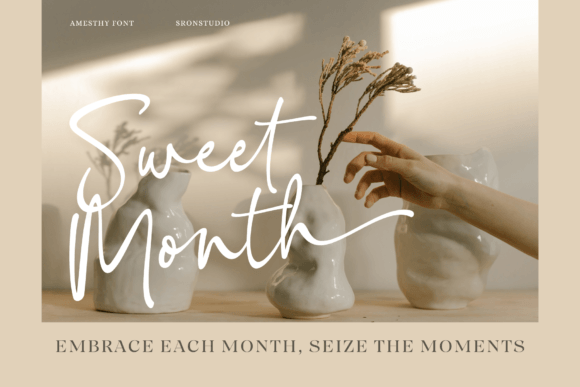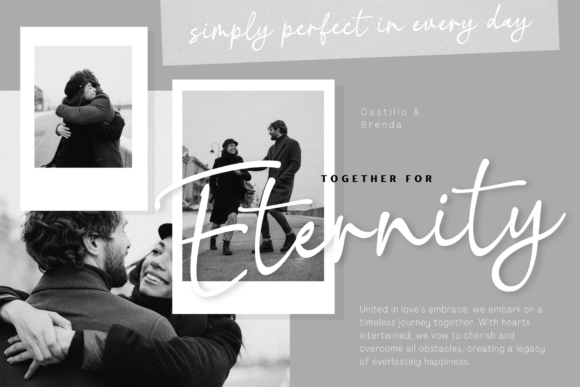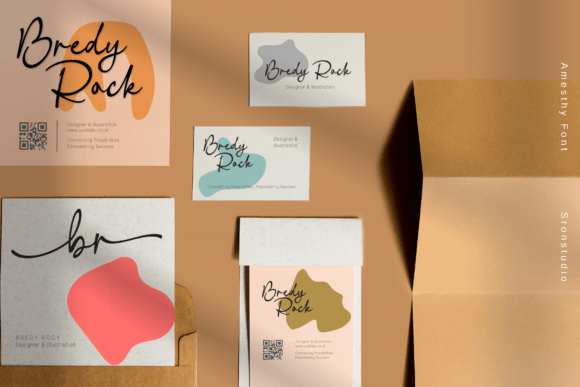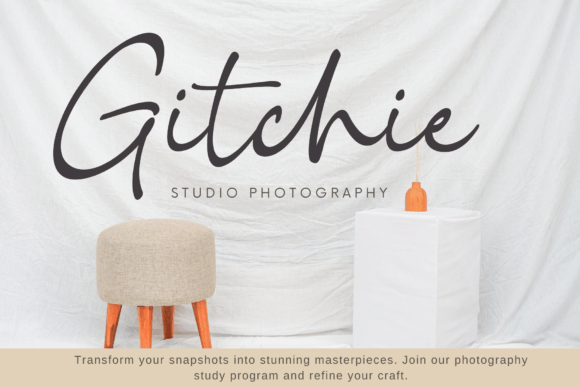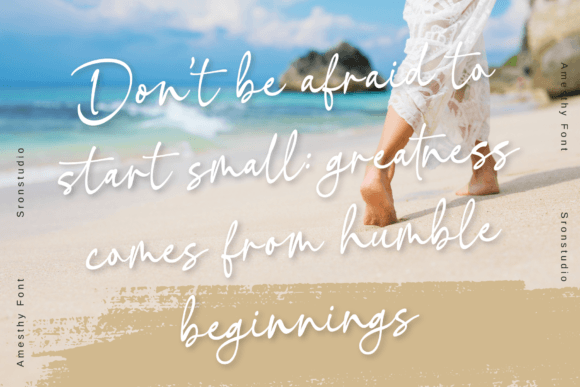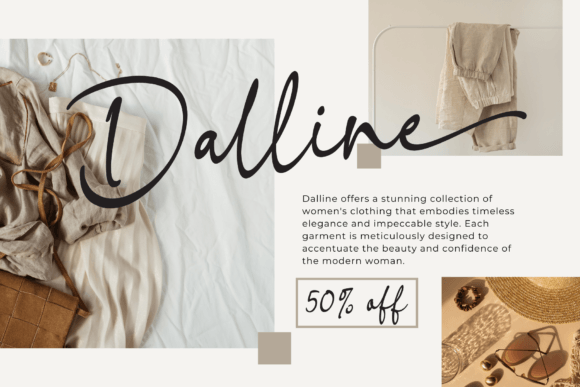
Introducing Amesthy Font: Elevate Your Designs with Elegance and Sophistication
In the world of design, fonts play a crucial role in conveying the tone and personality of a brand or project. For designers and crafters seeking to add a touch of luxury and refinement to their work, the Amesthy font is an exceptional choice. This sophisticated signature-style font is designed to bring elegance and a personal touch to various design applications, making it perfect for logos, invitations, personal branding, and more.
The Beauty of Amesthy Font
Amesthy font boasts flowing lines and stylish flourishes that exude refinement and luxury. Its unique, handwritten signature style gives any design a distinctive and high-end feel, setting it apart from more conventional fonts. Whether you’re working on a logo, an invitation, or a personal branding project, Amesthy adds a level of sophistication that is sure to leave a lasting impression.
Key Features of Amesthy Font
- Sophisticated Signature Style: Amesthy’s elegant and refined appearance makes it perfect for designs that require a touch of luxury.
- Flowing Lines and Flourishes: The font’s unique and stylish elements enhance its beauty and make each character stand out.
- Versatile Use: Ideal for a wide range of design projects including logos, invitations, personal branding, stationery, and more.
Why Choose Amesthy Font?
For designers and crafters, standing out in a crowded market is crucial. The Amesthy font offers a unique and stylish solution that can elevate your designs and make them more memorable. Here are a few reasons why Amesthy should be your go-to font for your next project:
- Elegance and Sophistication: Amesthy brings an unmatched level of elegance and sophistication to any design, making it perfect for high-end projects.
- Personal Touch: The handwritten signature style of Amesthy adds a personal touch to your designs, making them more relatable and engaging.
- Versatility: Amesthy’s versatility means it can be used across a variety of design projects, providing a consistent and professional look.
- Experiment with Glyphs and Ligatures: Take advantage of Amesthy’s PUA encoding to explore the various glyphs and ligatures available. This can add depth and uniqueness to your designs.
- Mix and Match: Don’t be afraid to experiment with different sizes, colors, and styles to create a look that is uniquely yours.
- Pair with Complementary Fonts: For a cohesive look, pair Amesthy with other fonts that complement its elegant and sophisticated style.
The Amesthy font is a powerful tool for designers and crafters looking to add a touch of elegance and sophistication to their work. With its flowing lines, stylish flourishes, and PUA encoding for easy access to glyphs and ligatures, Amesthy is perfect for a wide range of design applications. Whether you’re creating a logo, invitation, or personal brand, Amesthy can help you make a lasting impression. Embrace the beauty of a handwritten signature with Amesthy and elevate your designs to new heights.